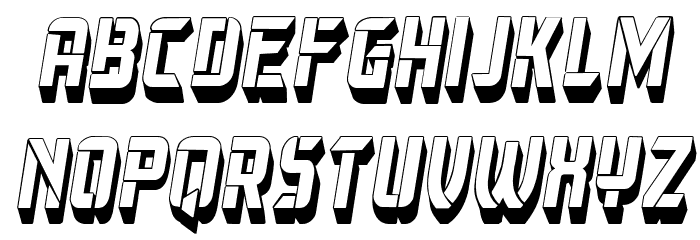
Herum Albern 3D Italic Font
This font features a bold, three-dimensional design with a distinct italic slant, creating a dynamic and eye-catching appearance. The letters are characterized by their thick, blocky forms and shadowed edges, giving a sense of depth and movement. The uppercase and lowercase letters maintain a consistent style, with sharp angles and clean lines that enhance readability while adding a playful, modern twist. The numbers and special characters are designed to match the overall aesthetic, ensuring a cohesive look across all text elements. This font is ideal for projects that require a strong visual impact and a contemporary feel.
A bold, 3D italic font with a dynamic and modern style.
- Proposed Projects: Ideal for headlines, posters, logos, and any design needing a bold, modern touch.